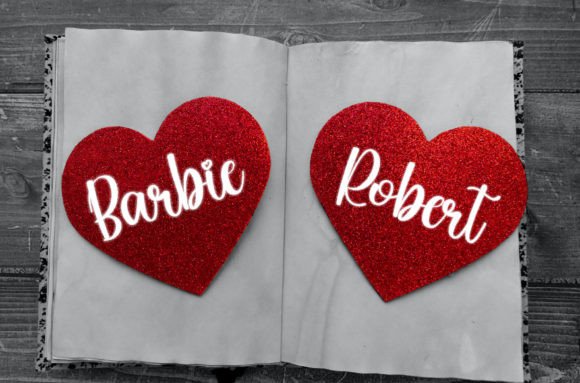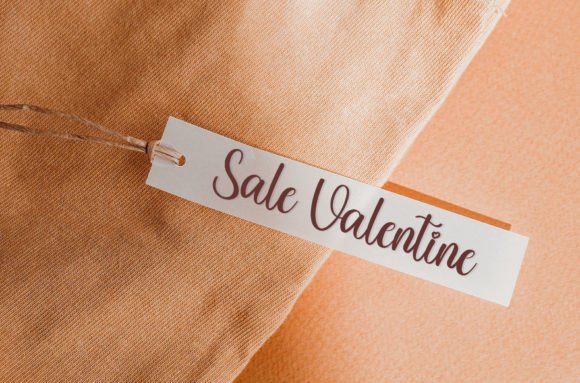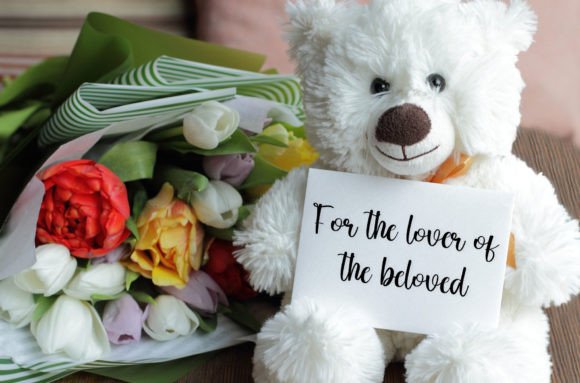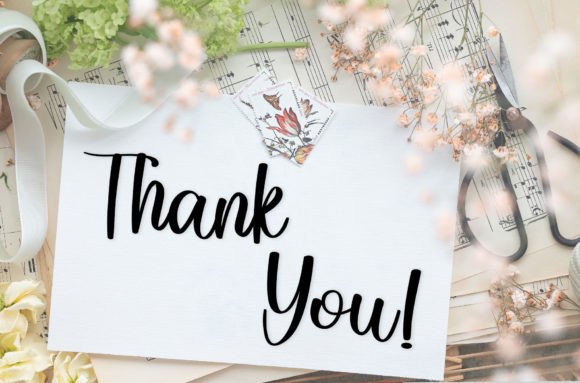
Sunshine Font
A Beautiful Handwritten Script
Sunshine is a flowing handwritten font that brings grace to every design. Its smooth strokes and stylish forms make it perfect for any project. Whether you are creating invitations, branding, or website graphics, Sunshine will help your work shine.
This font has an easy rhythm. Each letter connects in a natural way. The curves feel warm and friendly. These details create a classy look that never feels stiff or cold.
Sunshine suits many uses. It looks great on wedding invitations and save-the-date cards. It also works well for logos, product packaging, and social media graphics. If you want a font that feels personal and elegant, Sunshine is a smart choice.
The font includes uppercase and lowercase letters. You also get numbers, punctuation, and helpful ligatures. These features give you flexibility when designing. You can create beautiful headings and clear body text in one style.
Easy to Read and Use
Even though Sunshine has a flowing style, it stays easy to read. The balanced spacing and clean lines help your words stand out. When you use it in small sizes or on digital screens, it keeps its clarity.
Many designers love pairing Sunshine with a simple sans-serif font. This mix creates contrast and makes your layout modern. Try using Sunshine for headlines and a clean font for body text. This approach adds interest without looking busy.
Tips for the Best Results
To get the most from Sunshine, combine it with soft color palettes. Light backgrounds and subtle textures help the elegant lines stand out. You can also add floral elements or watercolor effects for a romantic touch.
Think about your audience and message. Sunshine works well for brands that value beauty, warmth, and a personal feel. Whether you design for luxury products or creative entrepreneurs, this font can set the right mood.
A Must-Have Font in Your Collection
Sunshine is more than just a script font. It is a tool that transforms text into art. Its graceful curves and stylish look add a special feel to every project.
Adding Sunshine to your font library gives you a reliable choice when you need elegance. You will find yourself reaching for it again and again. From formal events to friendly branding, it adapts with ease.